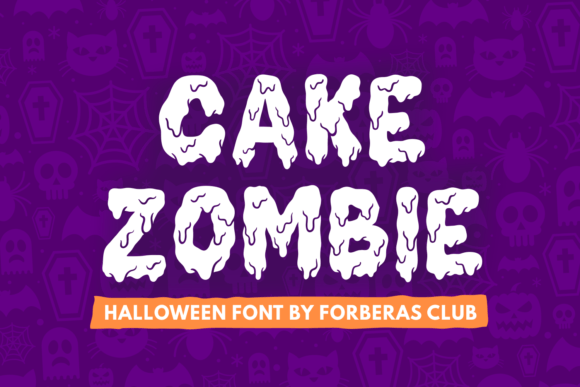
The Sweet Taste of Spooky Design
As designers, we’ve all been there – staring blankly at our computer screens, struggling to find the perfect font to bring our creative vision to life. The cursor blinks, our minds go blank, and we’re left wondering where to start. But what if we told you there’s a font that’s sure to shake off that creative block and bring a touch of spooky charm to your designs?
Enter Cake Zombie Font, a delightfully eerie display font that’s perfect for all your Halloween or horror-themed projects. With its unique blend of sweetness and scares, this font is a must-have for designers looking to add a touch of personality to their designs. Whether you’re creating a haunted house flyer, a creepy card, or a spine-tingling website, Cake Zombie Font is sure to be a valuable addition to your design arsenal.
Cake Zombie Font Key Features
- Character Set: This font features a unique set of characters, including uppercase and lowercase letters, numbers, and special characters, with a total of 250+ glyphs.
- Unique Characteristics: This font is known for its playful, handwritten style, with irregular letterforms and subtle imperfections, giving it a charming and organic feel.
- Font Weight and Style: Cake Zombie Font comes in a single font weight, with a single style, making it suitable for various design applications, from body text to headings.
Cake Zombie Font Review
Overall, I think the Cake Zombie Font is a fun and quirky addition to any design project. ✨ Its unique blend of bold lines and rounded edges gives it a playful, almost cartoon-like feel that’s hard to resist.
Here are a few things that really stand out to me:
- ✨ Great for headings and titles: The Cake Zombie Font is perfect for grabbing attention and drawing the reader in. Its bold, confident lines make it a great choice for headings and titles.
- ✨ Versatile: While it’s certainly playful, the Cake Zombie Font is versatile enough to work in a variety of design contexts, from children’s books to advertising campaigns.
- ✨ Unique: Let’s face it, the Cake Zombie Font is unlike any other font out there. Its quirky charm is sure to make your design stand out.
Of course, no font is perfect, and the Cake Zombie Font has its limitations:
- ⚠️ Not suitable for formal or professional contexts: While the Cake Zombie Font is perfect for playful, whimsical projects, it’s not the best choice for formal or professional contexts.
- ⚠️ Limited legibility: At small font sizes, the Cake Zombie Font can be a bit difficult to read.
Overall, I think the Cake Zombie Font is a great choice for designers who want to add a bit of whimsy and personality to their projects. Just be sure to use it in contexts where it will shine – and not get lost in the noise.
Cake Zombie Font is perfect for adding a playful, whimsical touch to your designs. Use it for:
- Food-related designs (e.g. cake, cupcake, ice cream)
- Children’s books and educational materials
Remember to adjust the font size and style to fit the tone and mood of your design.